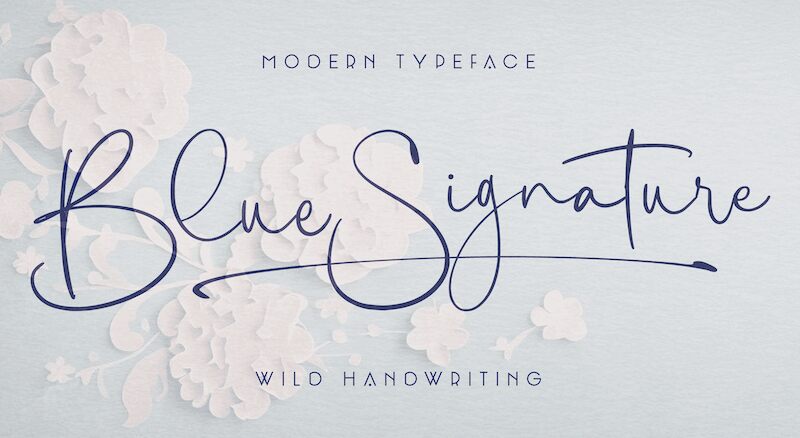
Blue Signature, designed by the renowned Mans Greback, is a stunning handwritten font that exudes elegance and sophistication. With its extra-light weight and signature style, this font is perfect for designing wedding invitations, event flyers, and high-end branding projects. Emulate the beauty of a handwritten signature with Blue Signature's unique strokes and curves. This font will add a touch of personalization to your projects while maintaining a professional look. Whether you're designing for luxury fashion brands or upscale restaurants, Blue Signature will elevate your designs to new heights.
Blue Signature is a playful and expressive handwriting font with a wild and untamed style. Its looping, flowing strokes and elegant curves give it a unique and authentic look. Designed with a focus autograph-like qualities.
Use underscore _ anywhere in a word to make a swash.
Example: White_sign
Use multiple underscores to make different swashes.
Example: Love____letters
Use * to make flowers!
Pink*Roses
Spring***Party